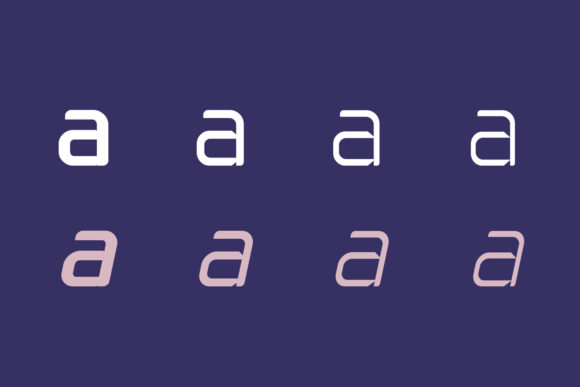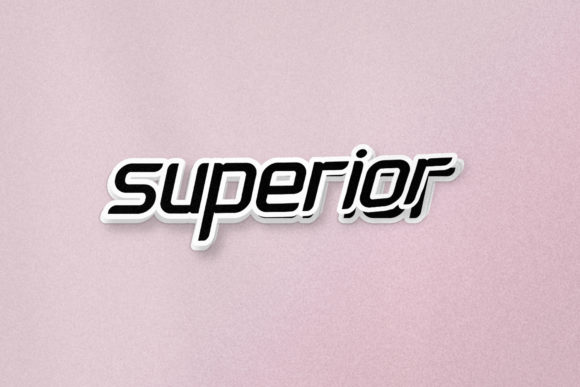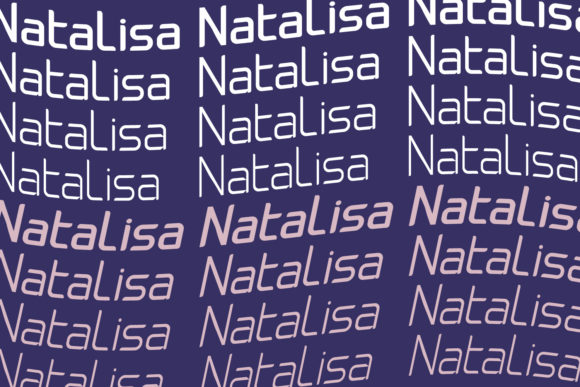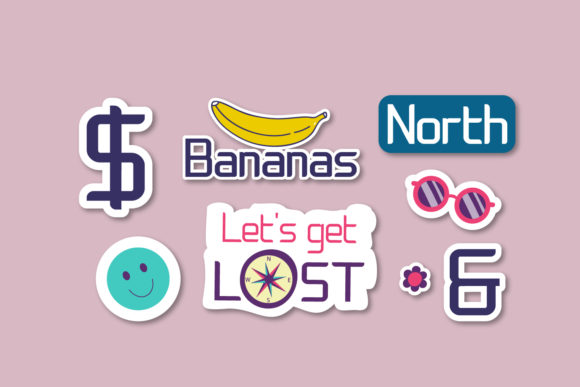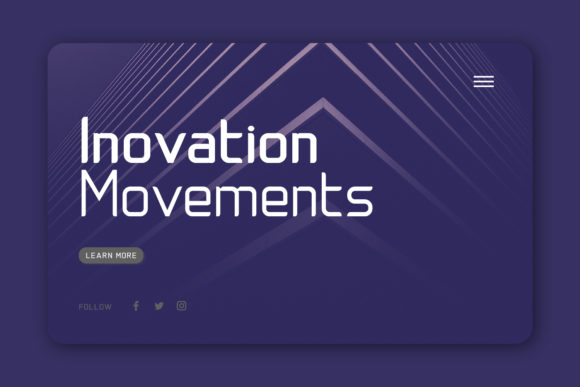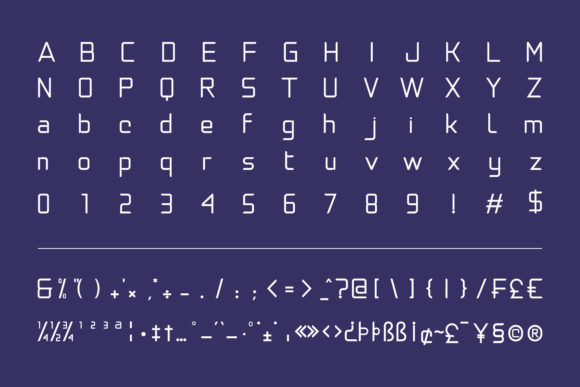
Introduction to Natalisa Font Font
Fonts play a crucial role in design, and the Natalisa Font font is a typeface that brings both character and versatility to any project. Whether you’re working on a branding project, a website, or a print design, the Natalisa Font font offers a unique style that can elevate your work.
Natalisa embodies fun, quirkiness and authenticity.
This enchanting sans serif font will turn any creative idea into a true standout .
Key Features of Natalisa Font Font
Why Choose Natalisa Font Font?
The Natalisa Font font is more than just a typeface – it’s a design tool that helps you communicate your message with style and clarity. Its unique character set and versatile design make it suitable for a wide range of applications, from elegant invitations to bold headlines.
With its carefully crafted letterforms and balanced proportions, the Natalisa Font font ensures readability and visual appeal across all mediums.
What makes Natalisa Font font special?
The Natalisa Font font stands out with its unique design, exceptional readability, and versatility across various design applications.